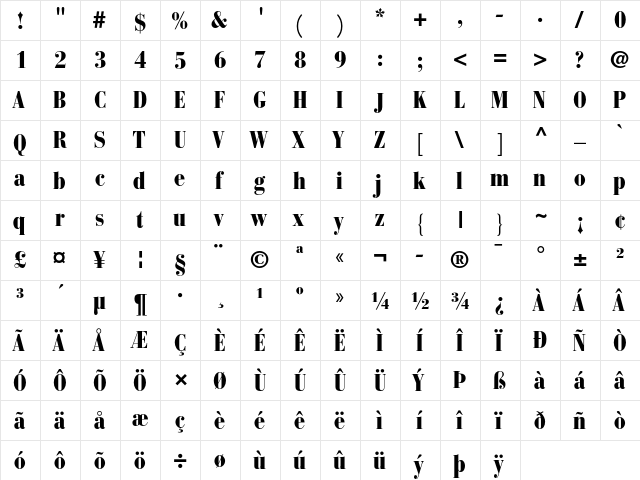
Bauer Bodoni Black Condensed
Design Context for Bauer Bodoni Typeface
Bauer Bodoni is a composed and adaptable typeface that performs quietly and consistently across a wide range of design contexts. The condensed width makes it efficient for tight spaces without sacrificing legibility.